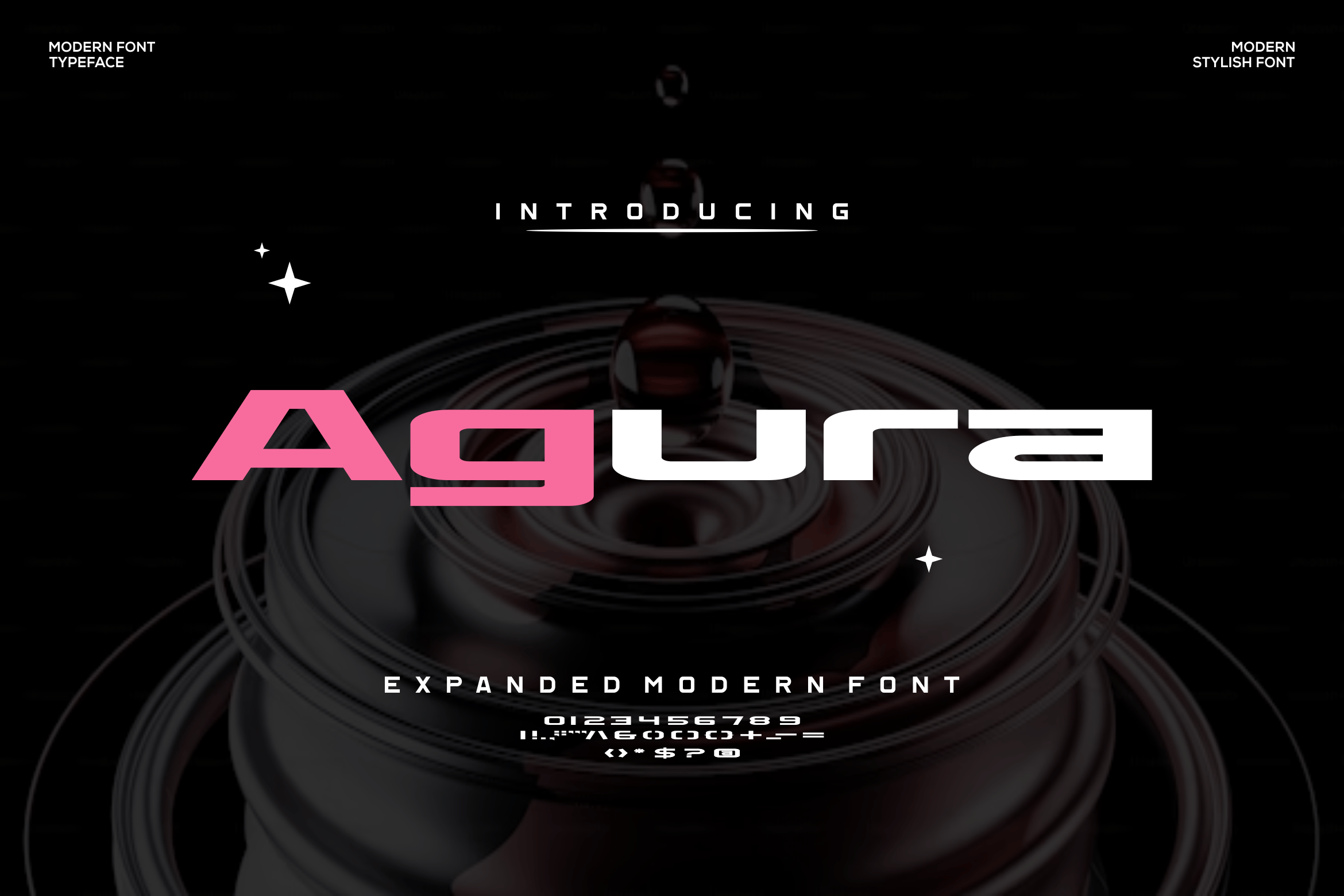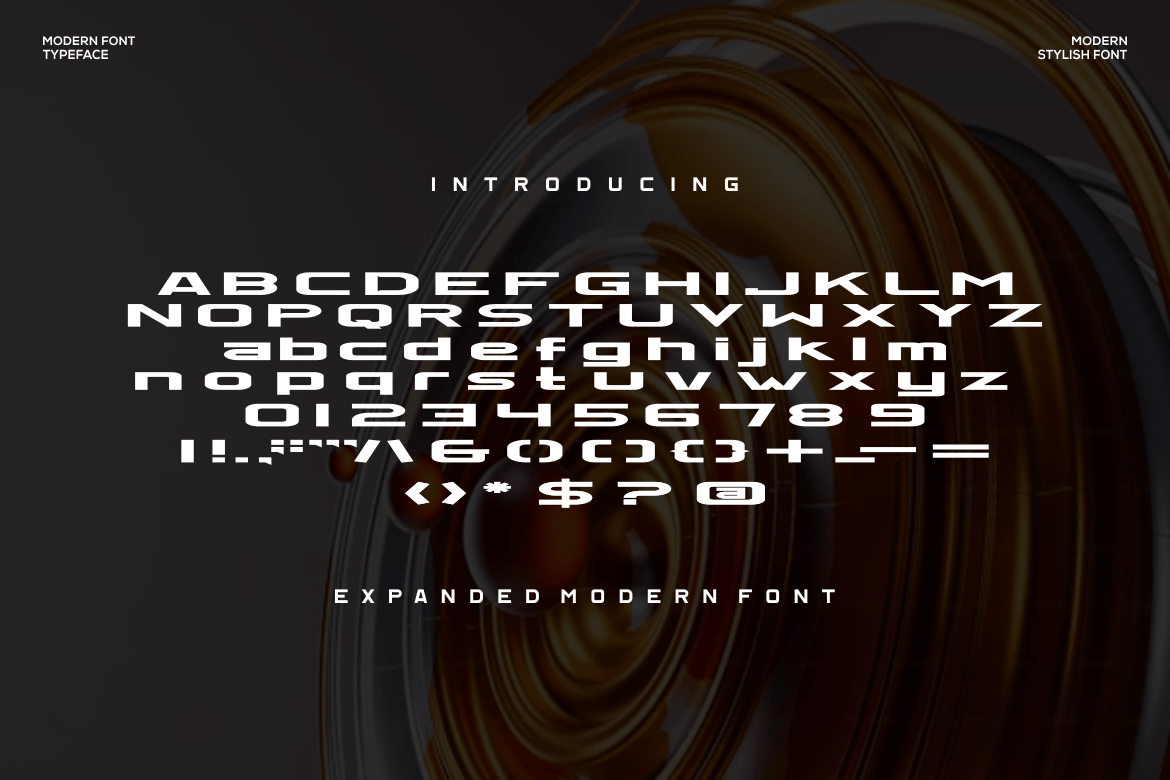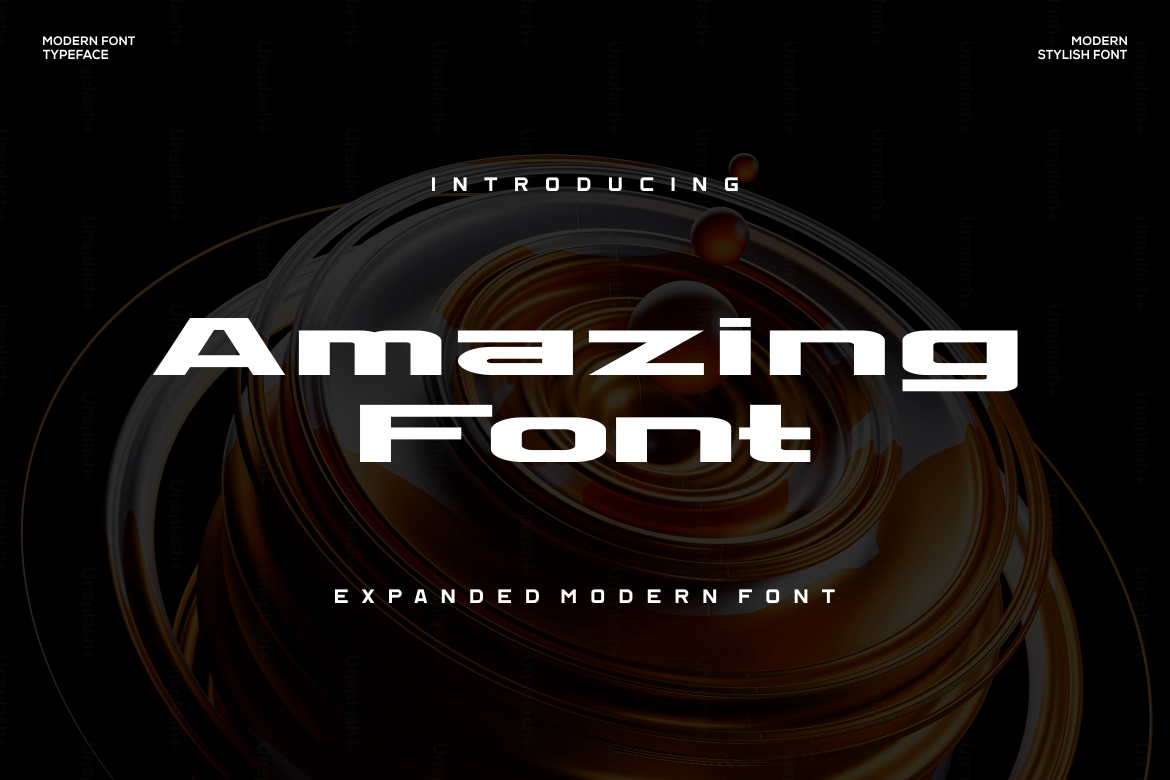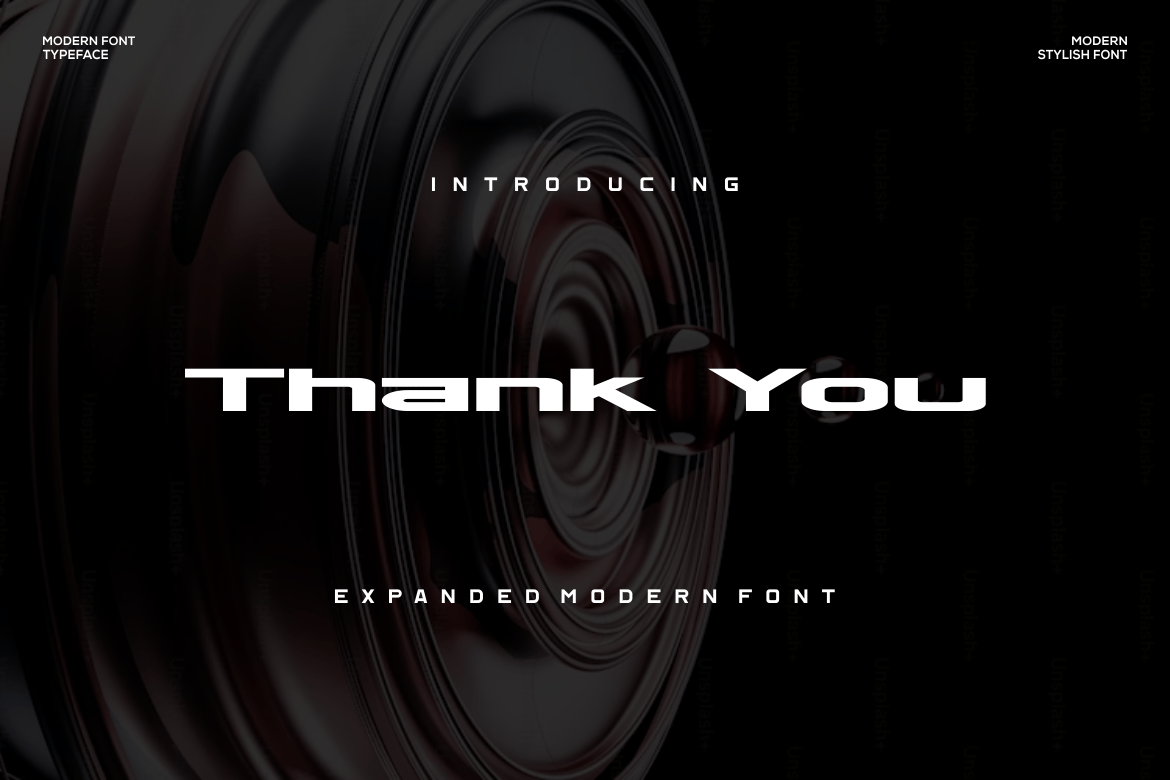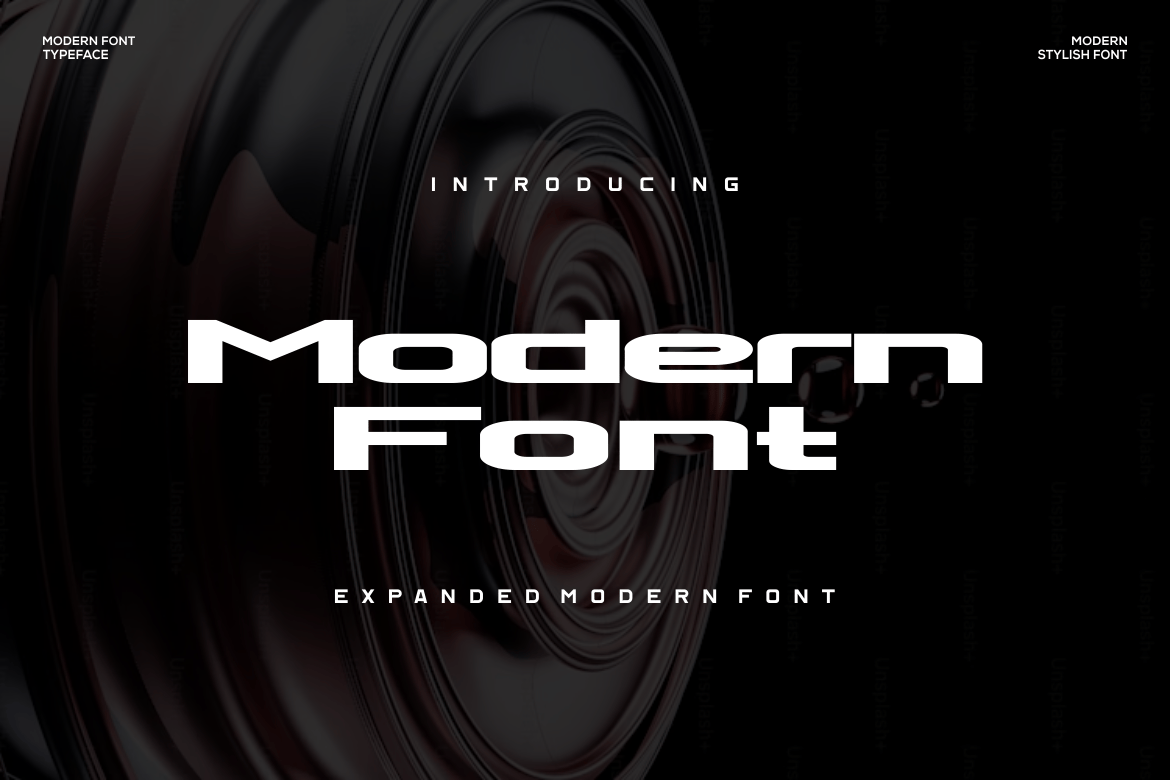
Introducing our new product **Agura Font** – Modern Font
**Agura Font** – Modern Font is a bold and authentic display font. The font is suitable for any branding project like logo, esport, and many more. outstanding in a wide range of contexts.